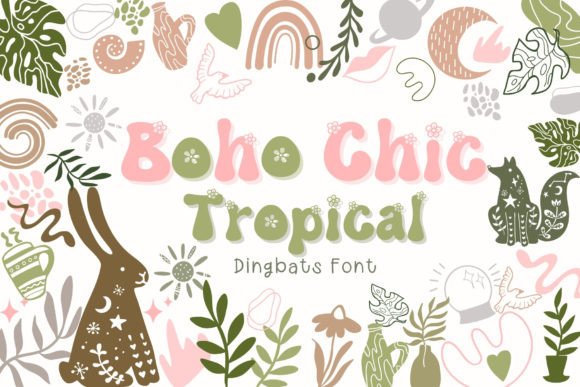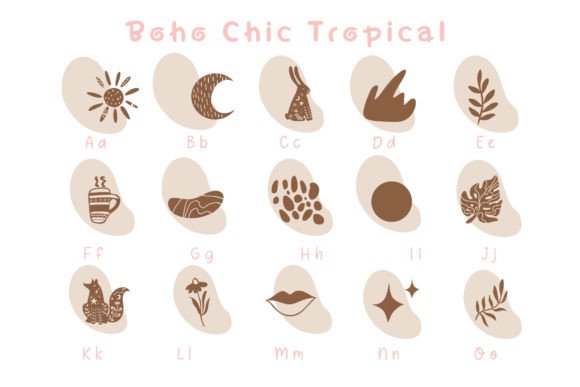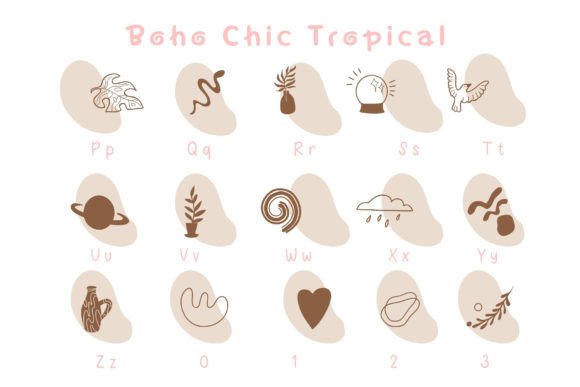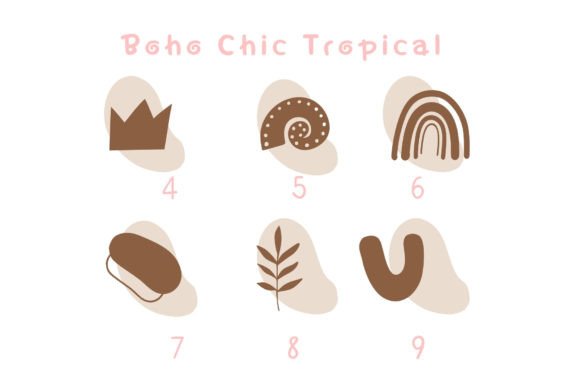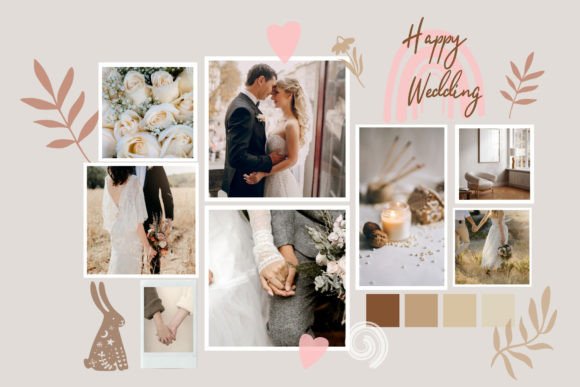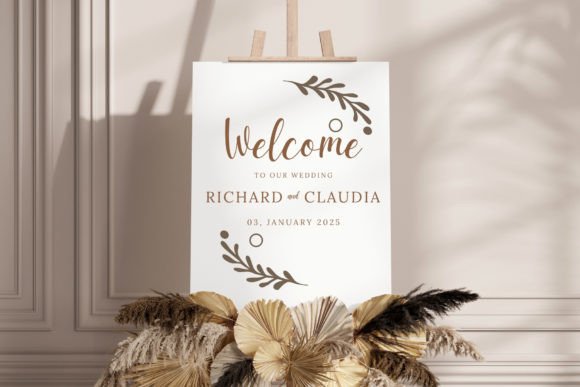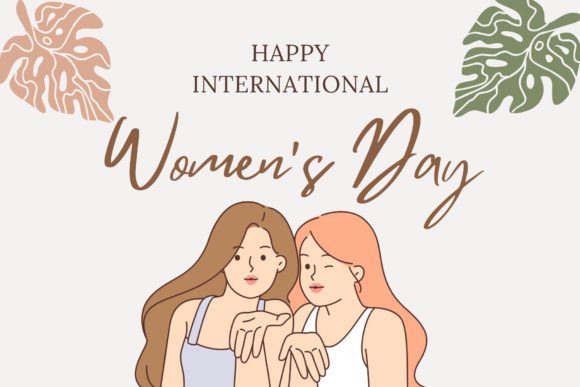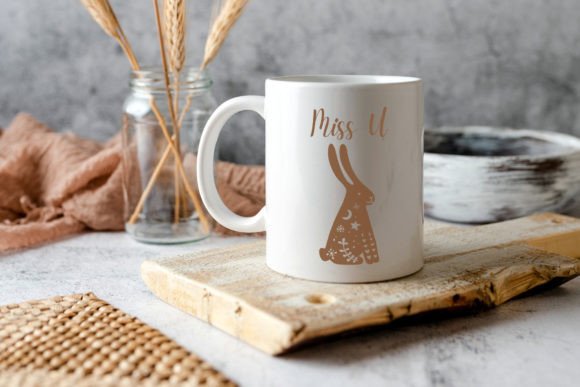
Boho Chic Tropical Font
Boho Chic Tropical is a useful and delicately designed dingbats font. Add it confidently to your projects, and you will love the results.